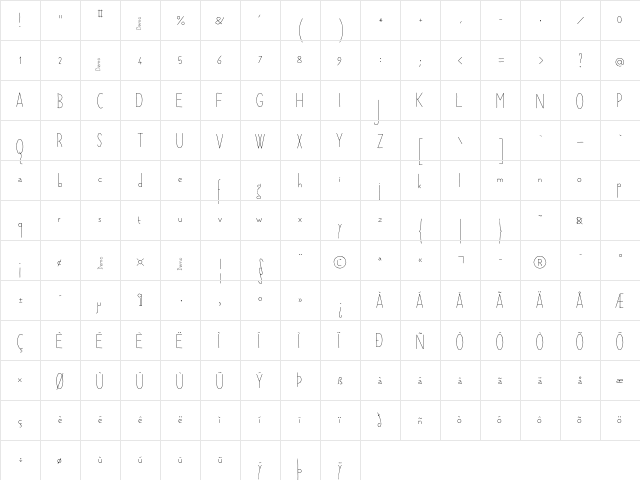
Hopefulgiraffe Demo Demo
Design Context for Hopefulgiraffe Demo Typeface
Hopefulgiraffe Demo is a composed and adaptable typeface that performs quietly and consistently across a wide range of design contexts.